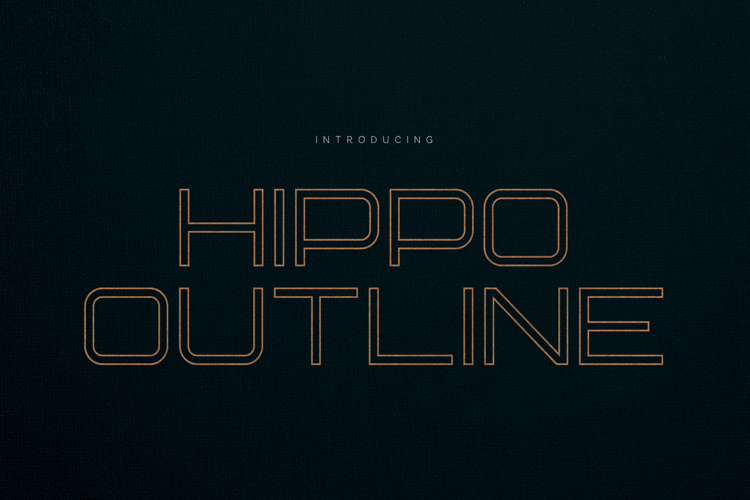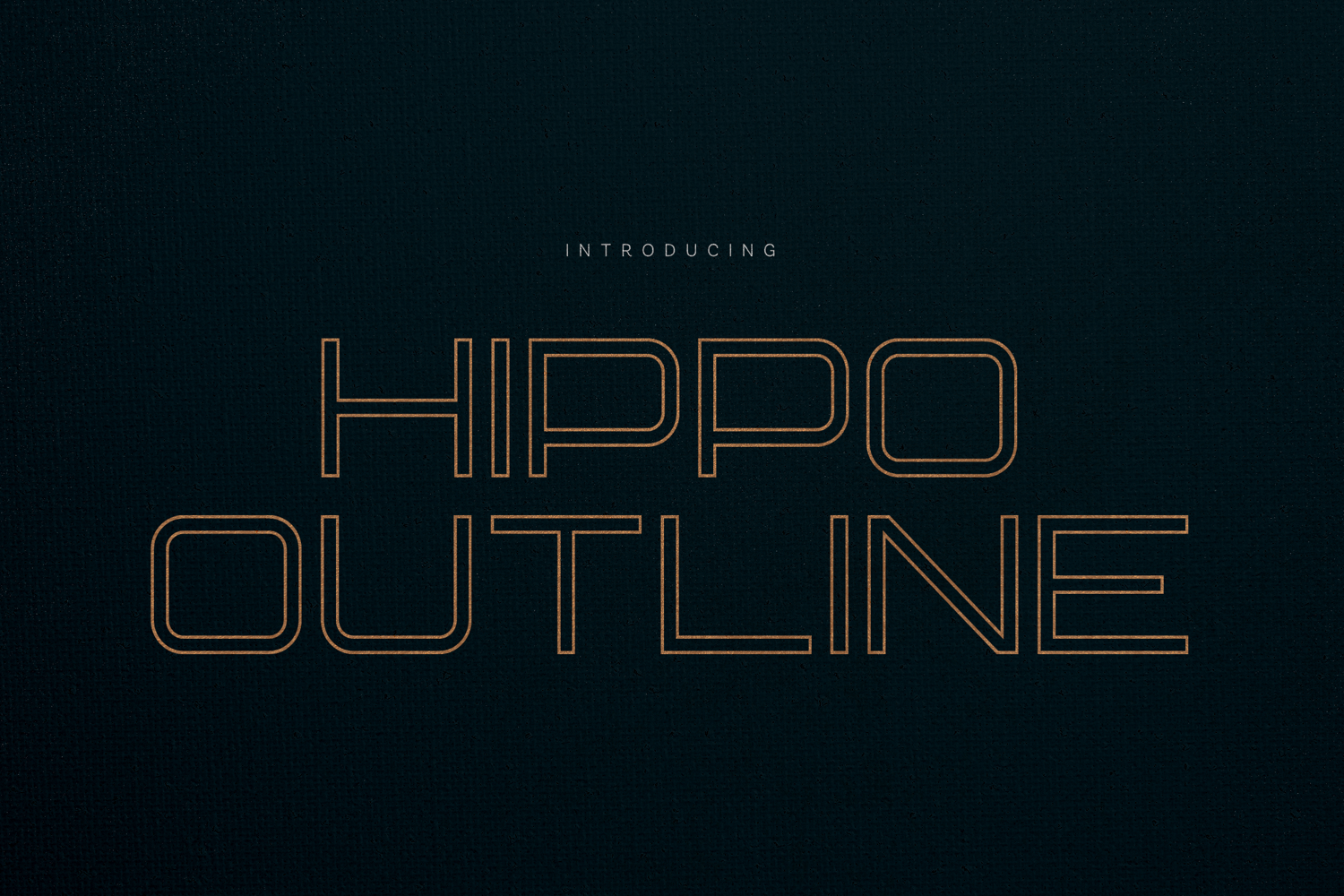
Hippo Outline Modern Double Line Sans Serif Font
Hippo Outline is a modern double-line sans serif font designed for bold headlines, futuristic branding, posters, logos, and statement typography.
With its clean geometric structure and unique outlined construction, Hippo Outline delivers a strong visual presence while maintaining clarity and elegance. The double stroke style creates depth and a contemporary architectural feel — perfect for editorial layouts, tech branding, sports graphics, packaging, and modern identity systems.
Clean. Bold. Contemporary. Impactful.